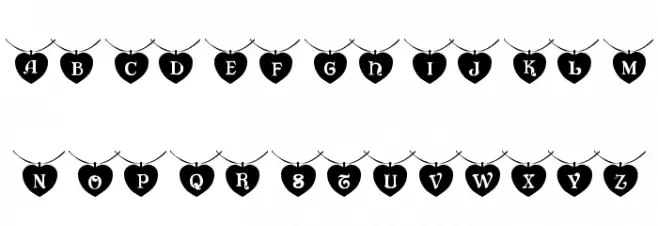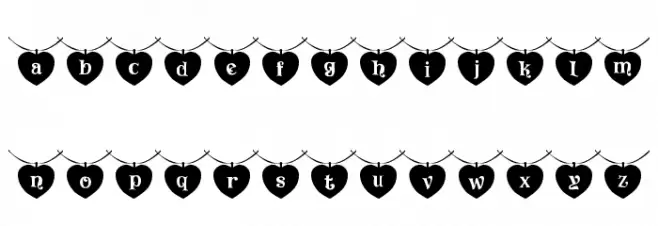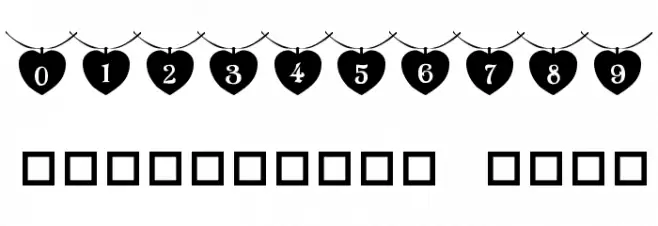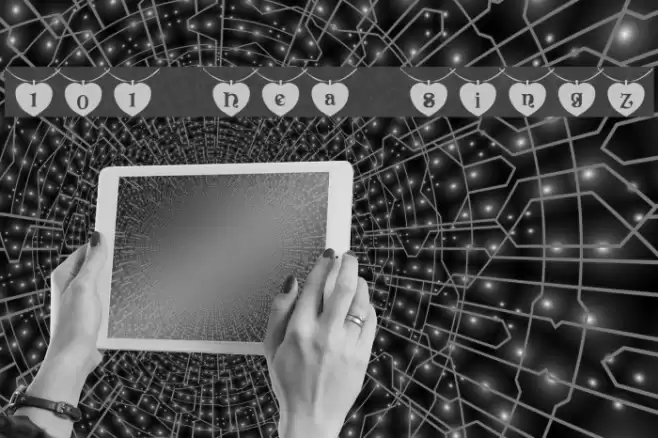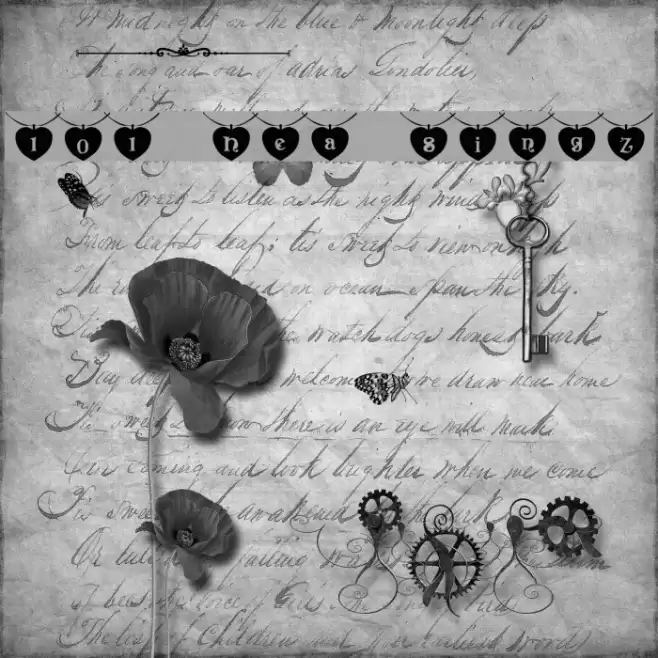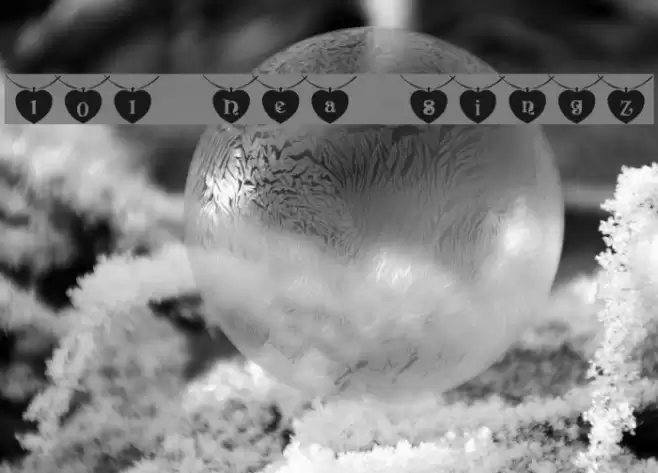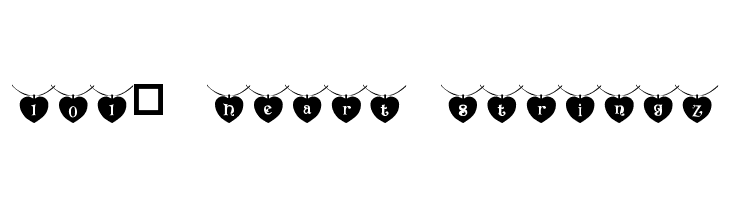
101! Heart StringZ
This decorative font features characters enclosed within heart shapes, creating a playful and whimsical appearance. Each letter and number is centered inside a heart, connected by a string, giving the impression of a garland. The characters themselves have a classic serif style, with moderate contrast in stroke thickness, adding a touch of elegance to the otherwise playful design. The font is perfect for festive occasions, romantic themes, or any project that requires a charming and unique visual element. The heart motif is consistent across all characters, providing a cohesive and thematic look.
A whimsical serif font with characters inside heart shapes, ideal for festive and romantic themes.
- Proposed Projects: Ideal for Valentine's Day cards, wedding invitations, romantic banners, festive decorations, and playful branding projects.
- Overall Style: Decorative
- Use Case: Headlines, Logos, Decorative text